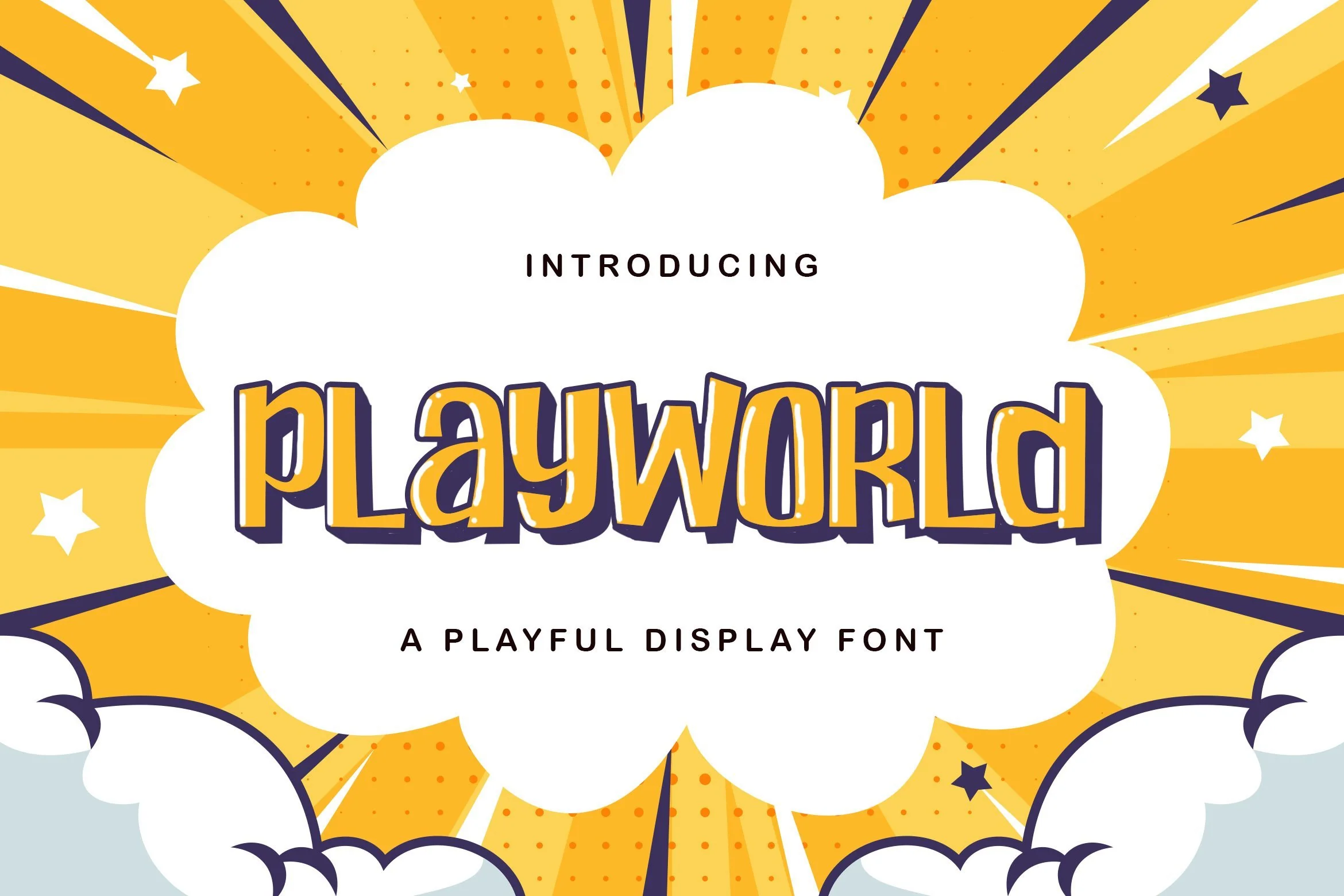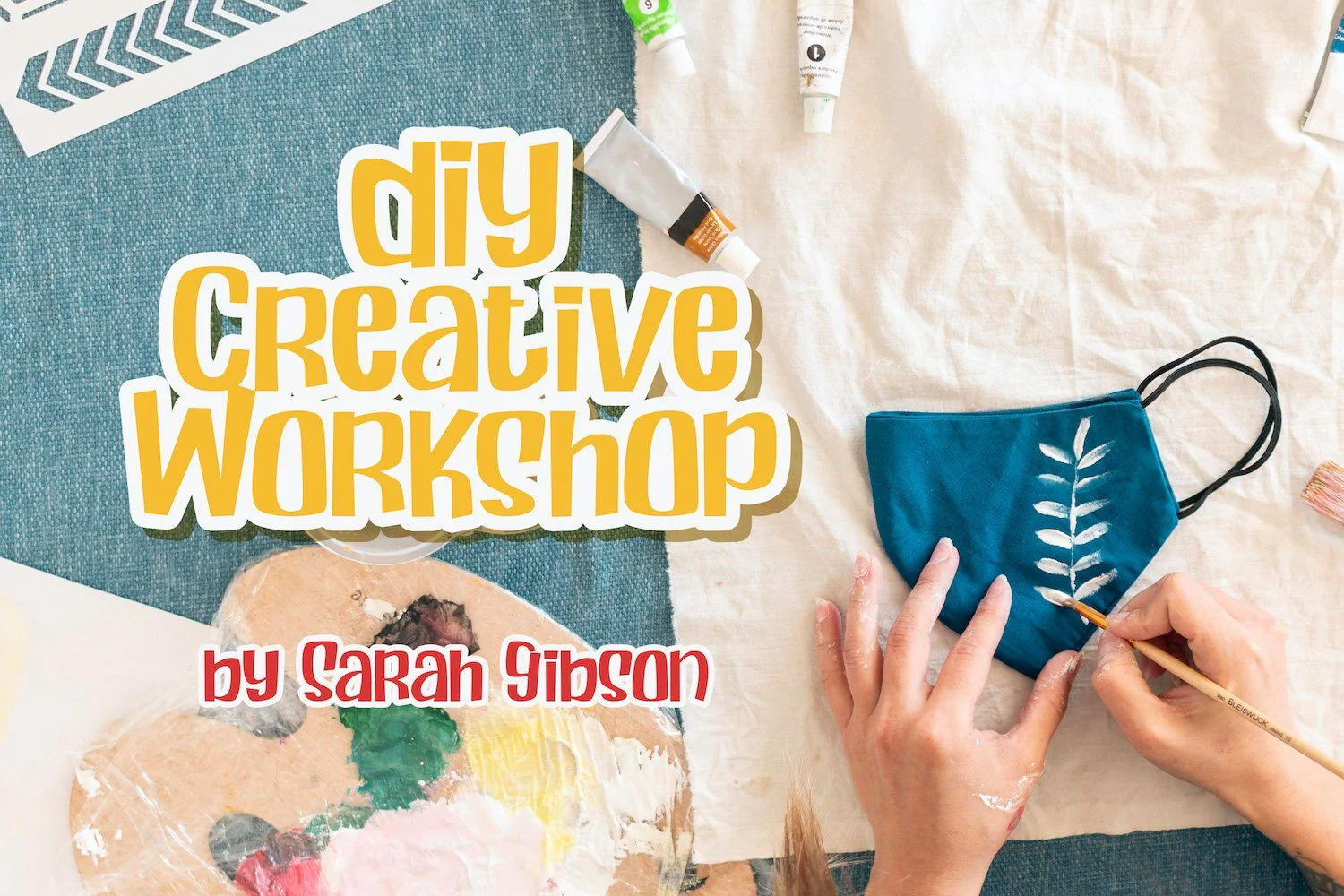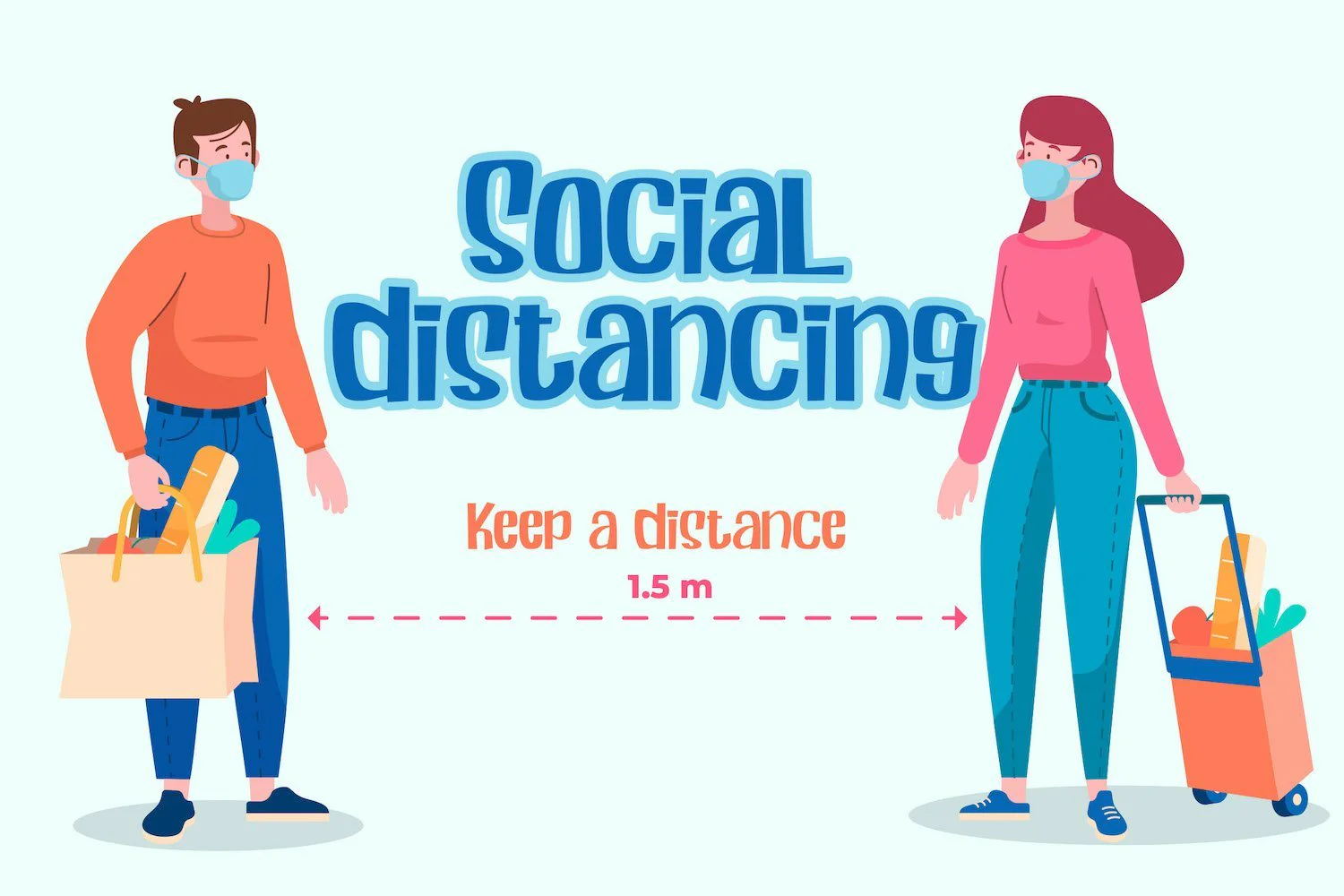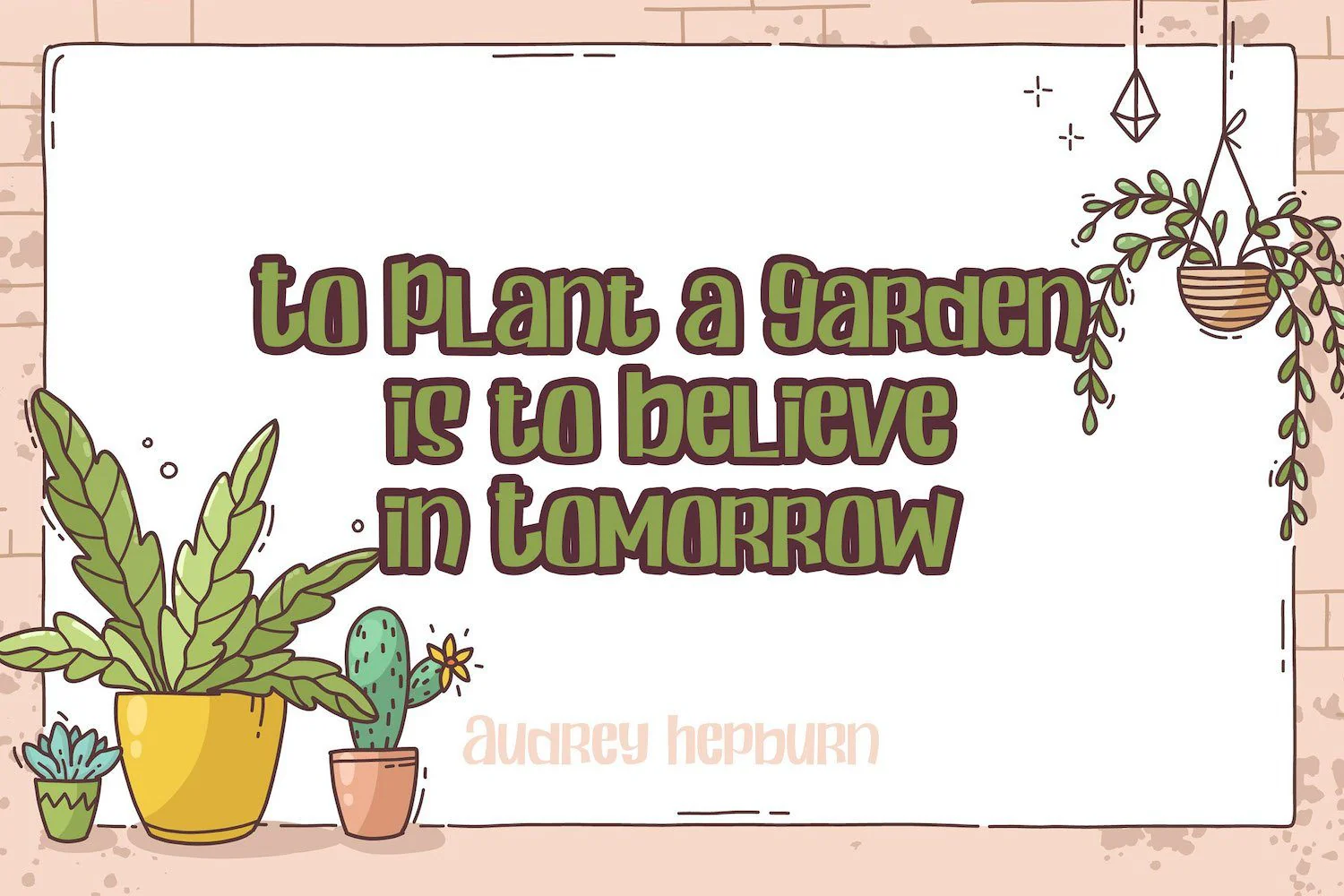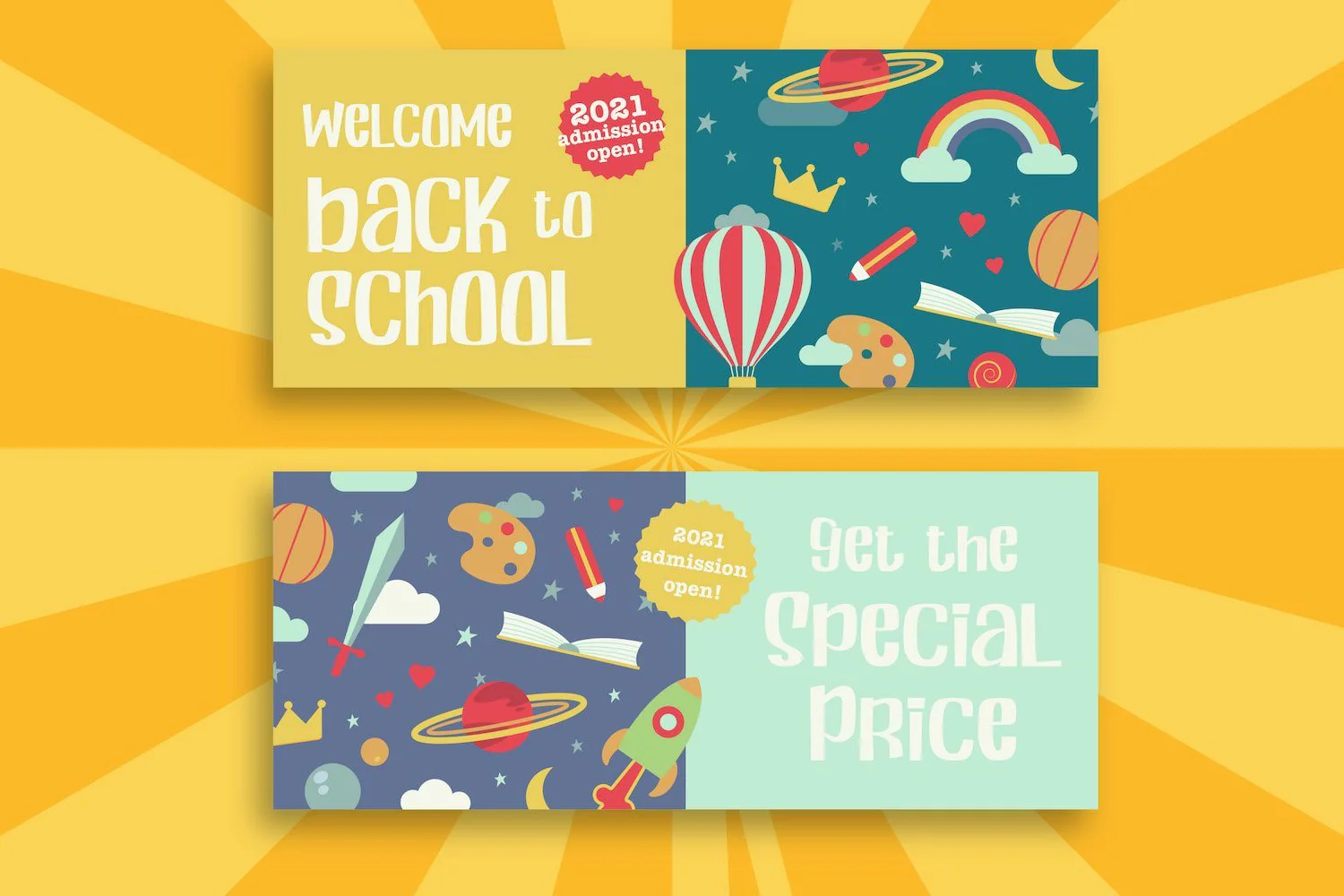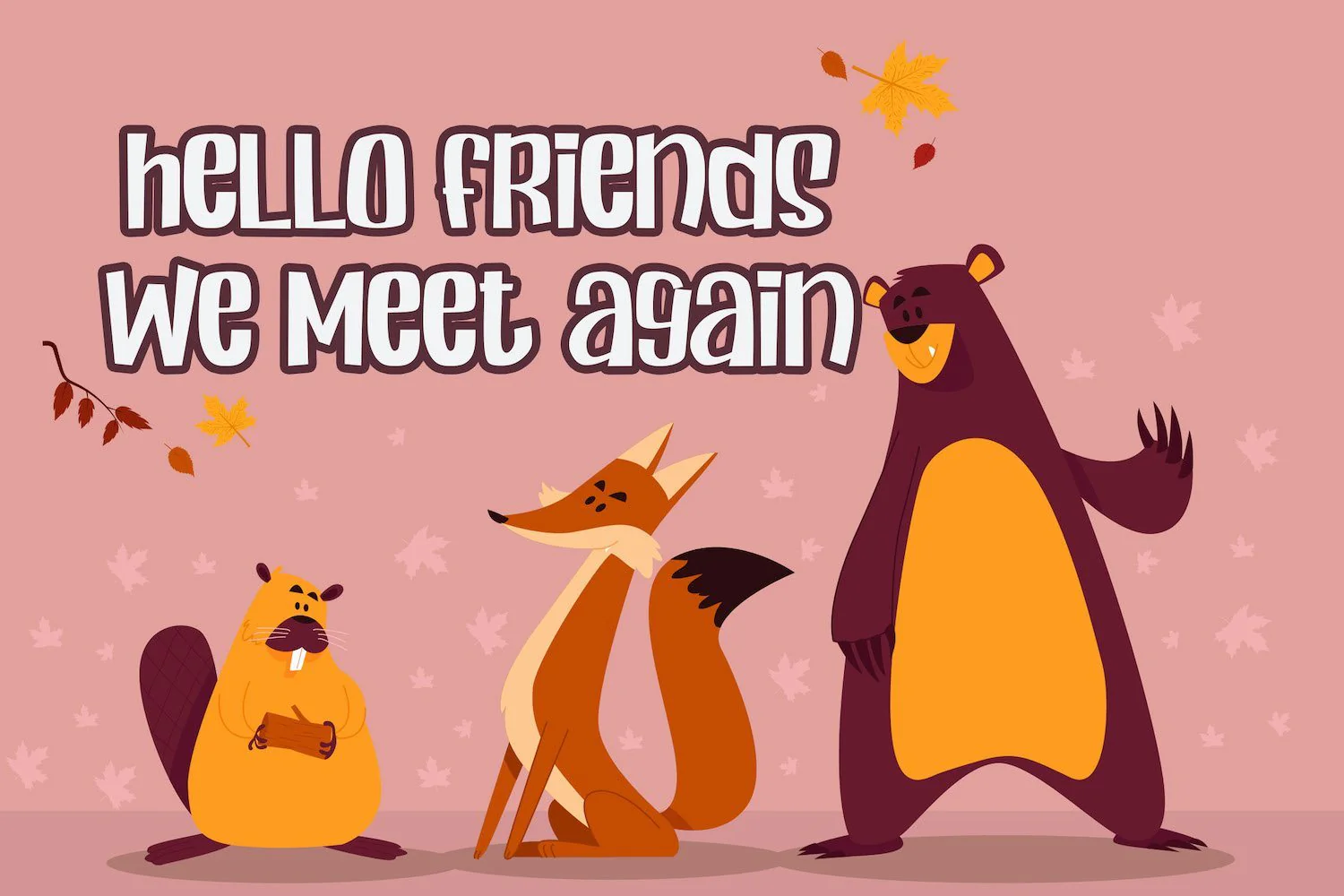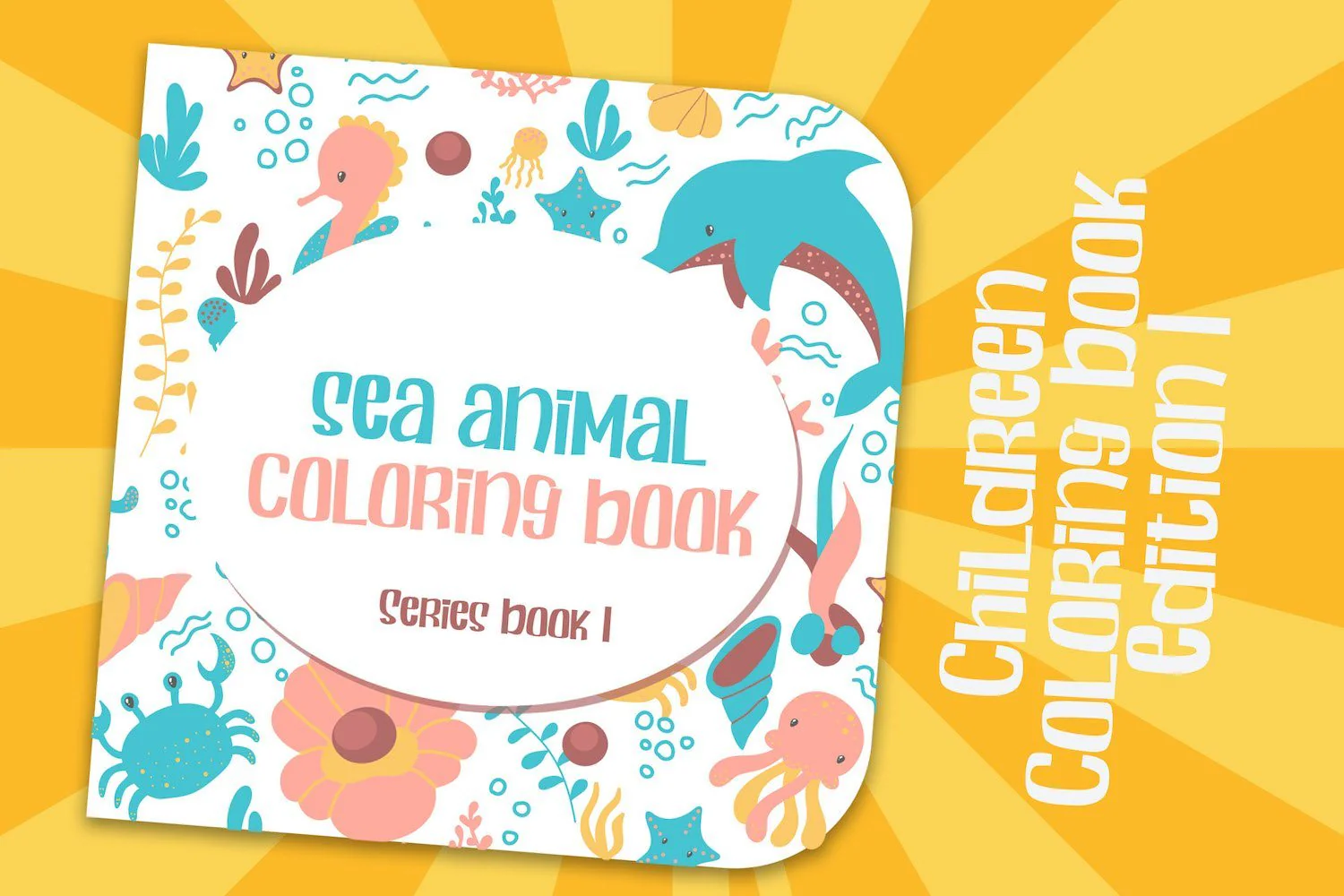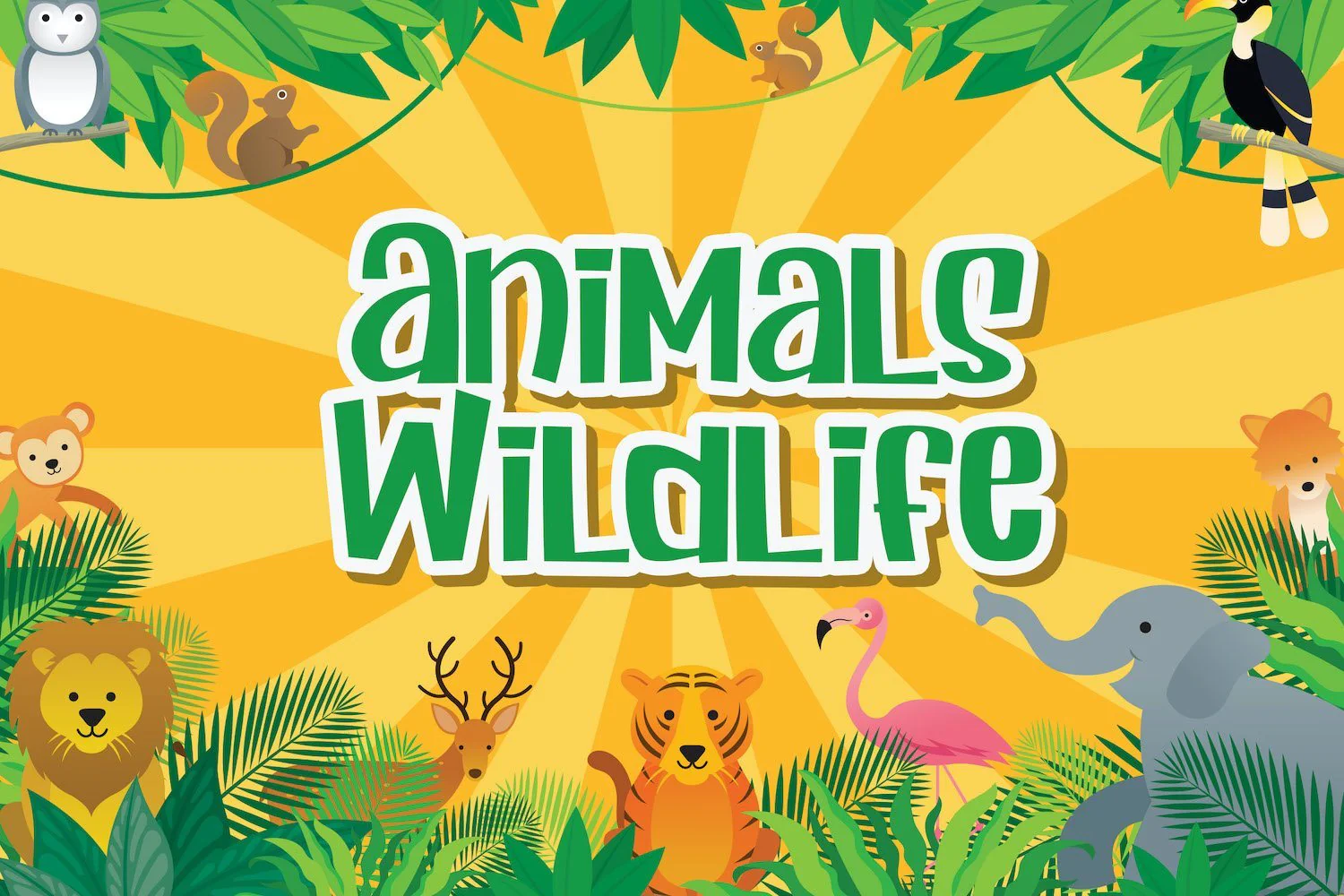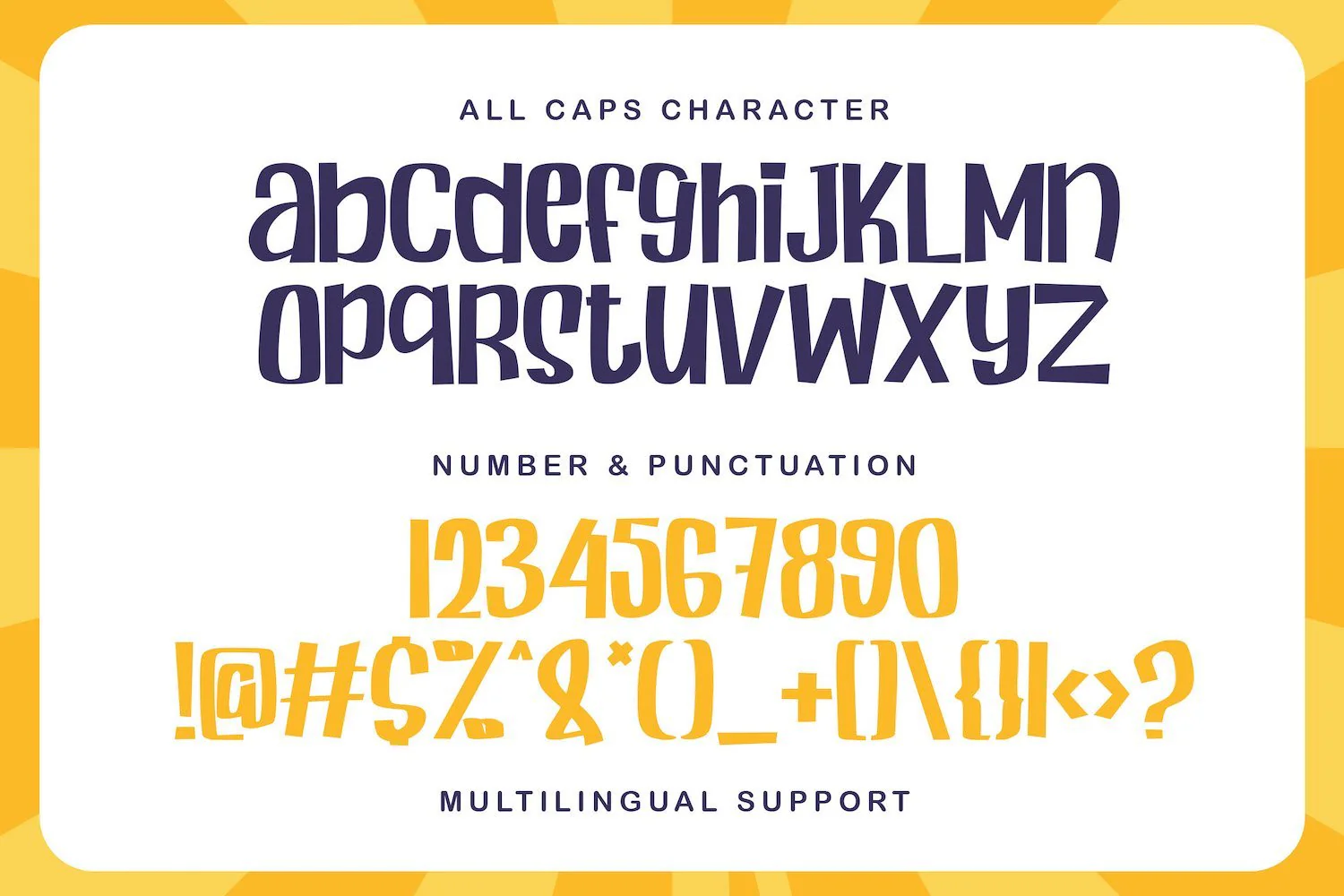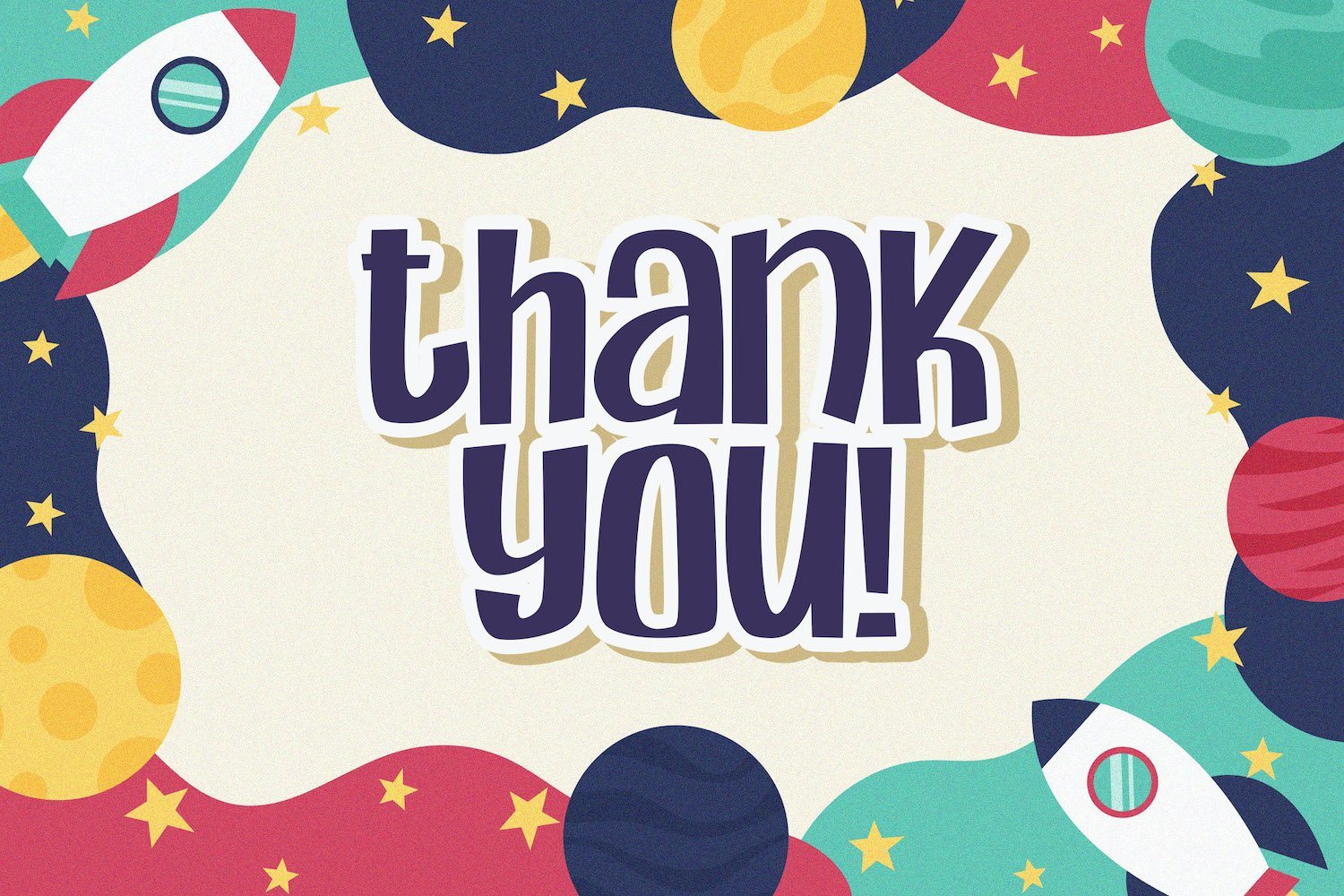
Playworld - Playful Display Font
Introducing Playworld - Playful Display Font
Playworld is a fun display font. Playful and fresh, this font will be a hit for each of your children or school projects!
Introducing Playworld - Playful Display Font
Playworld is a fun display font. Playful and fresh, this font will be a hit for each of your children or school projects!